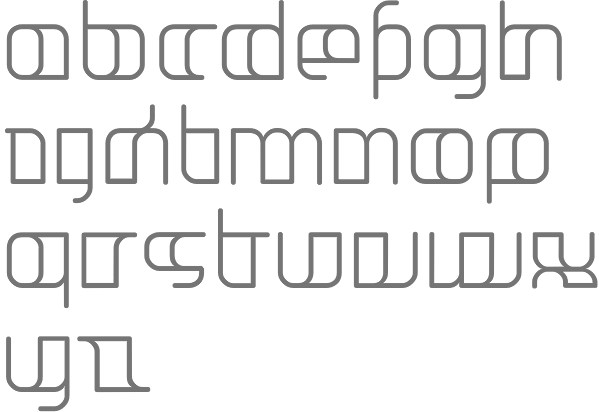
Swiss [T-26] designer of Broken Screen (2004, blackletter pixel face), Diphtong (2003), Blockletter (2009, arched letters), Tivoli (2006, sans family in four styles), Hive (2000, dot matrix face), Ruota (2003, two wheel dingbat fonts), Yr-72 (2000), Jakone (2000, a fantastic techno headline face), DPI (2001, dot matrix font). Home page. MyFonts claims that he was born in Berlin in 1975. |